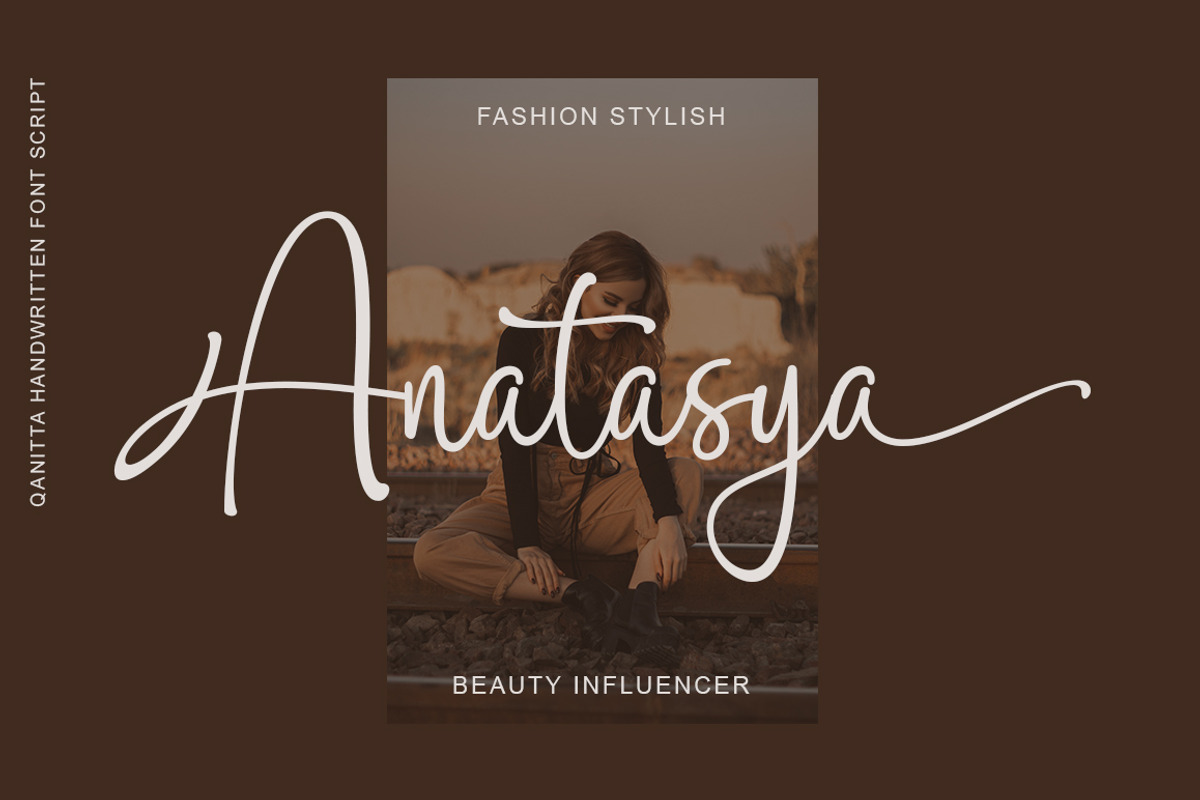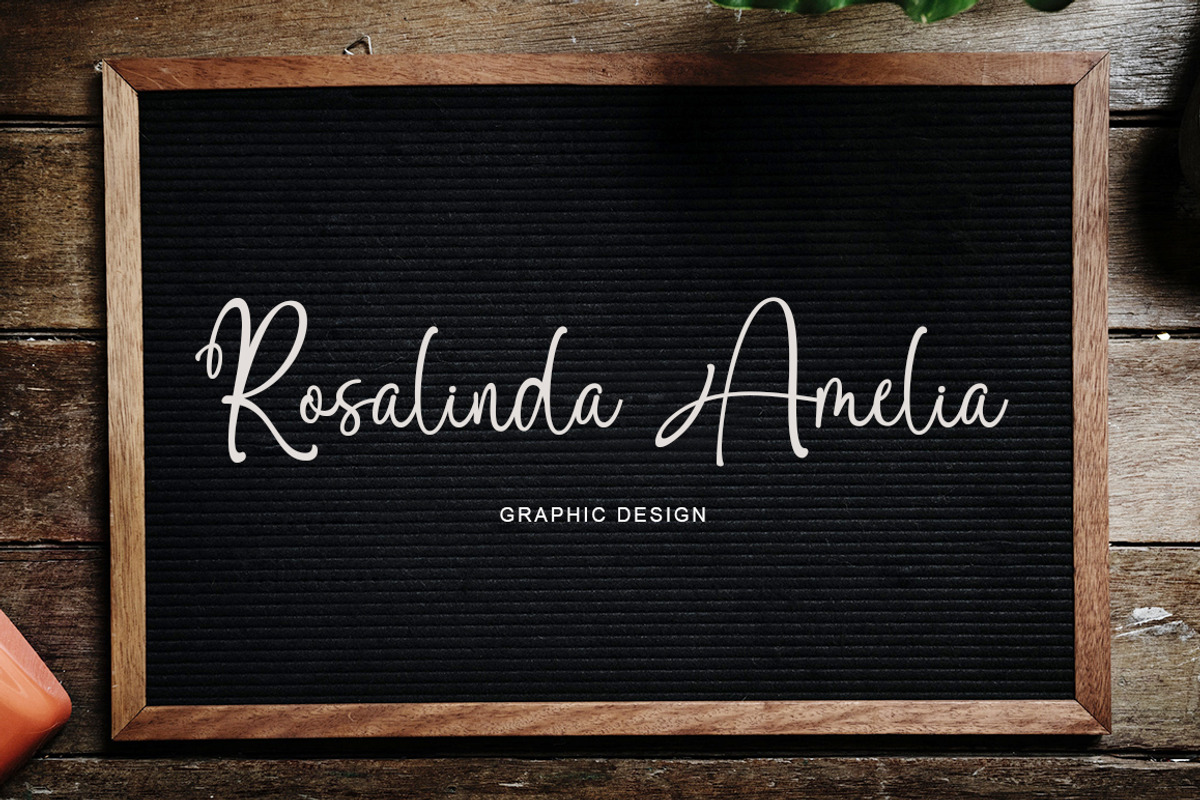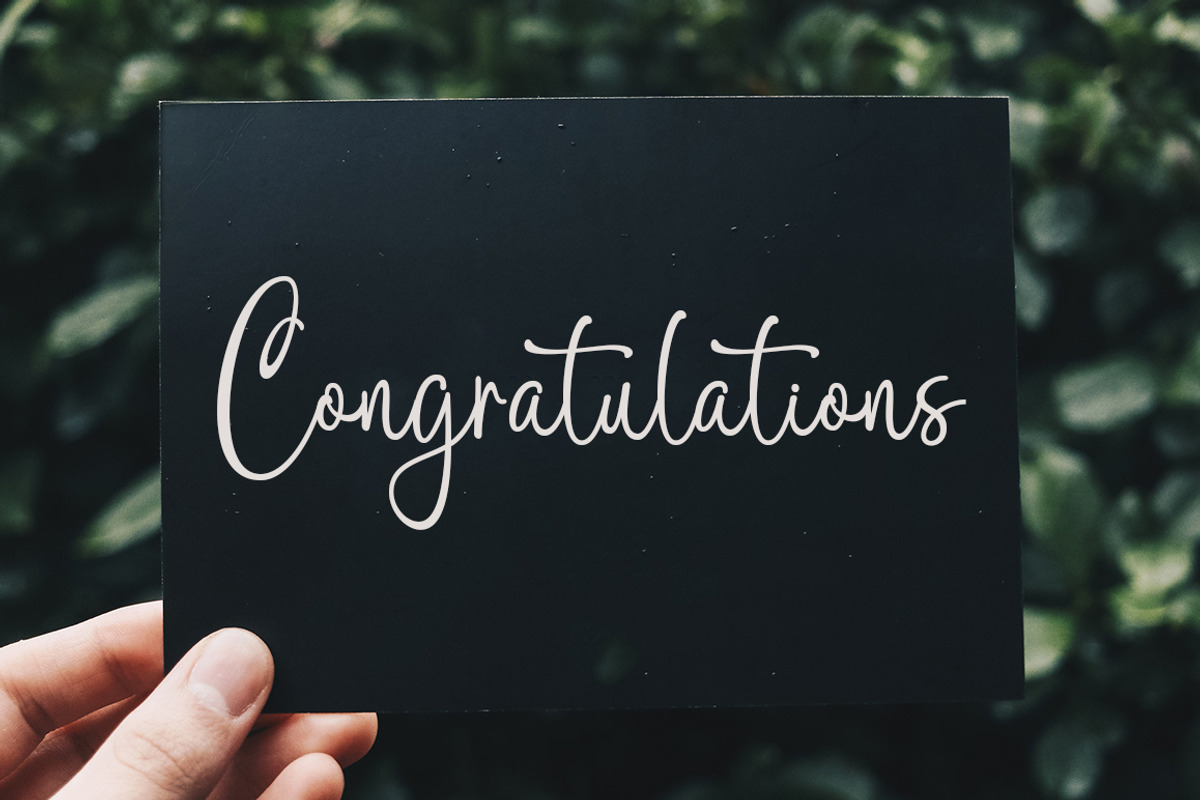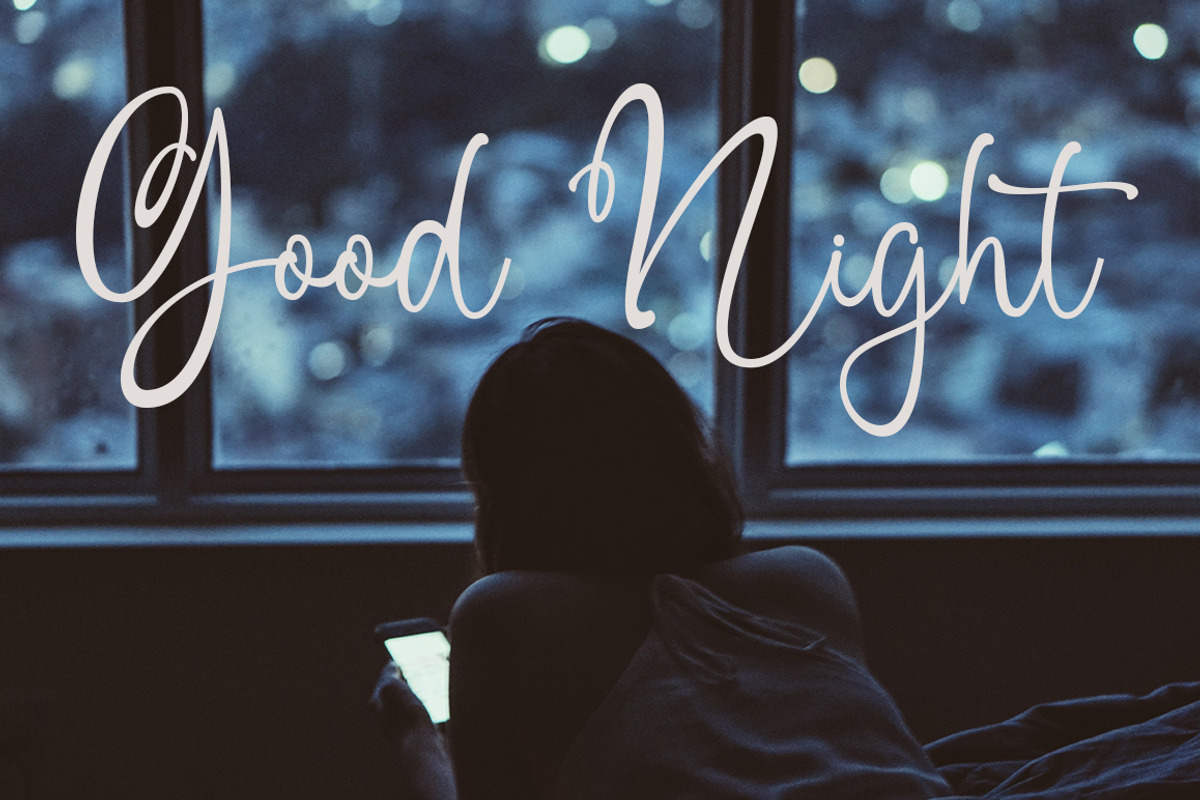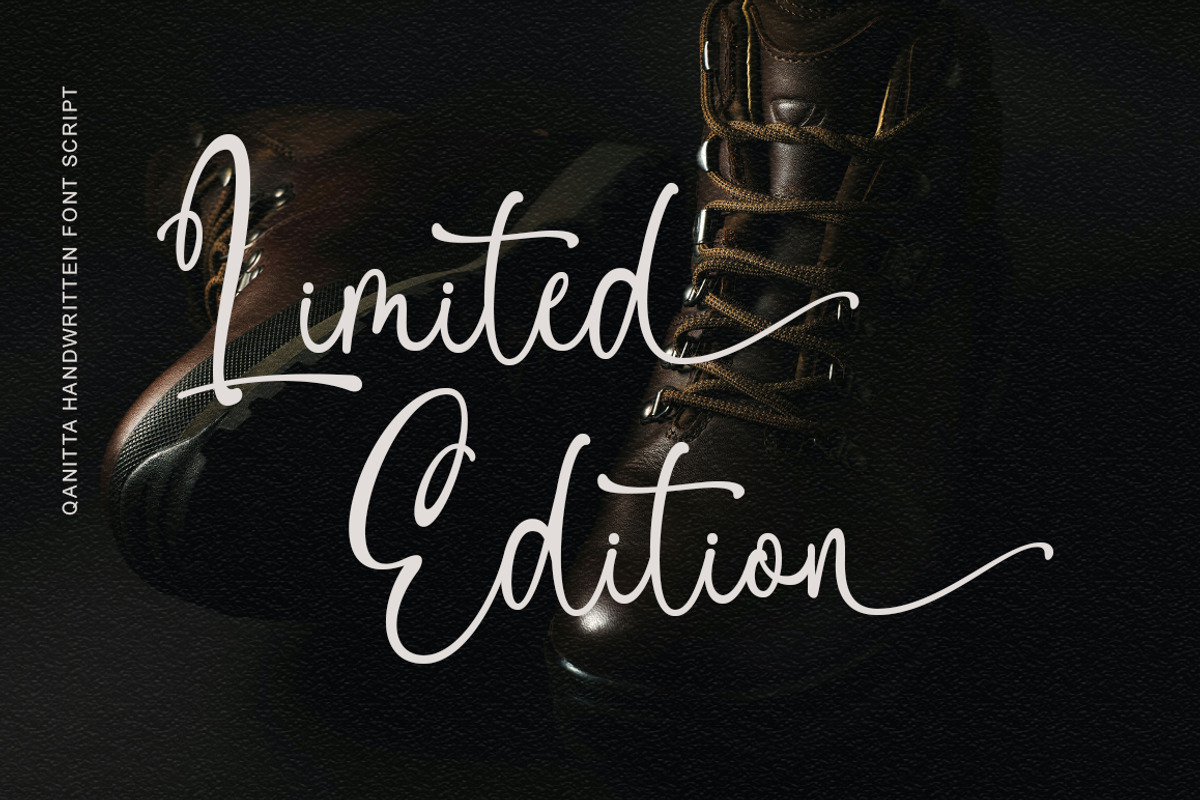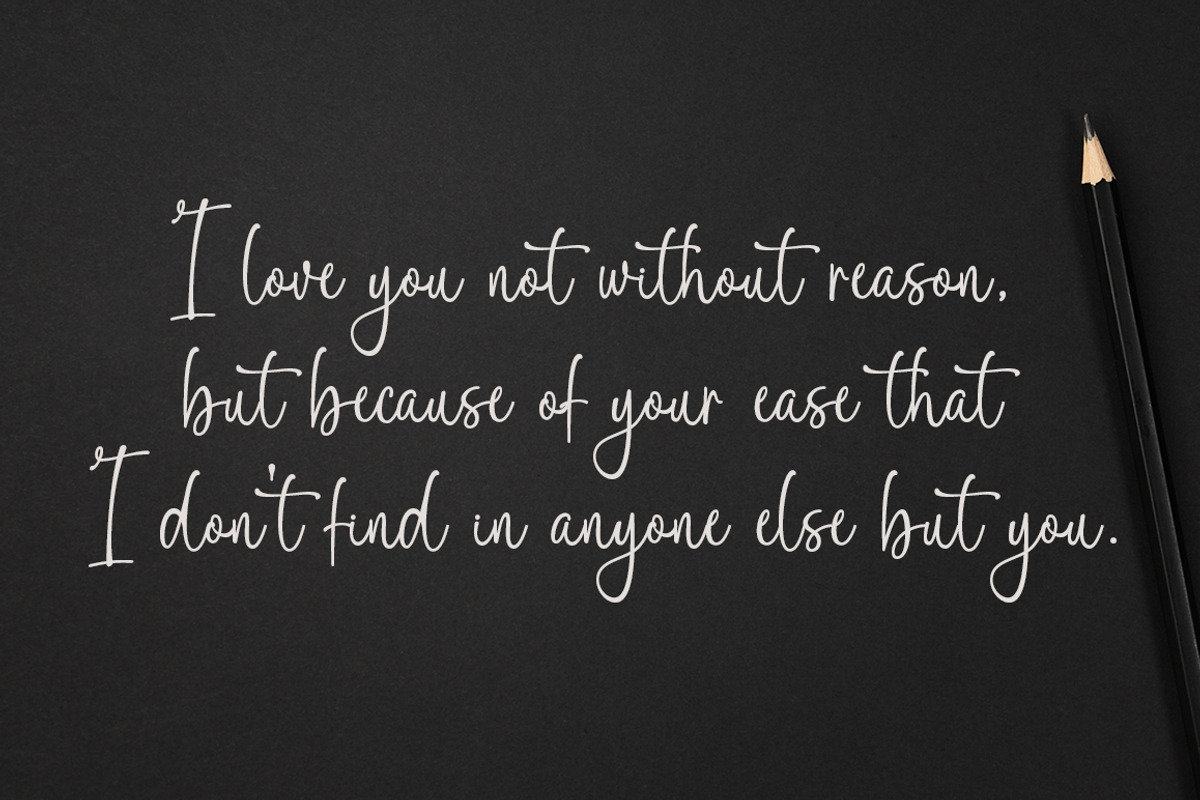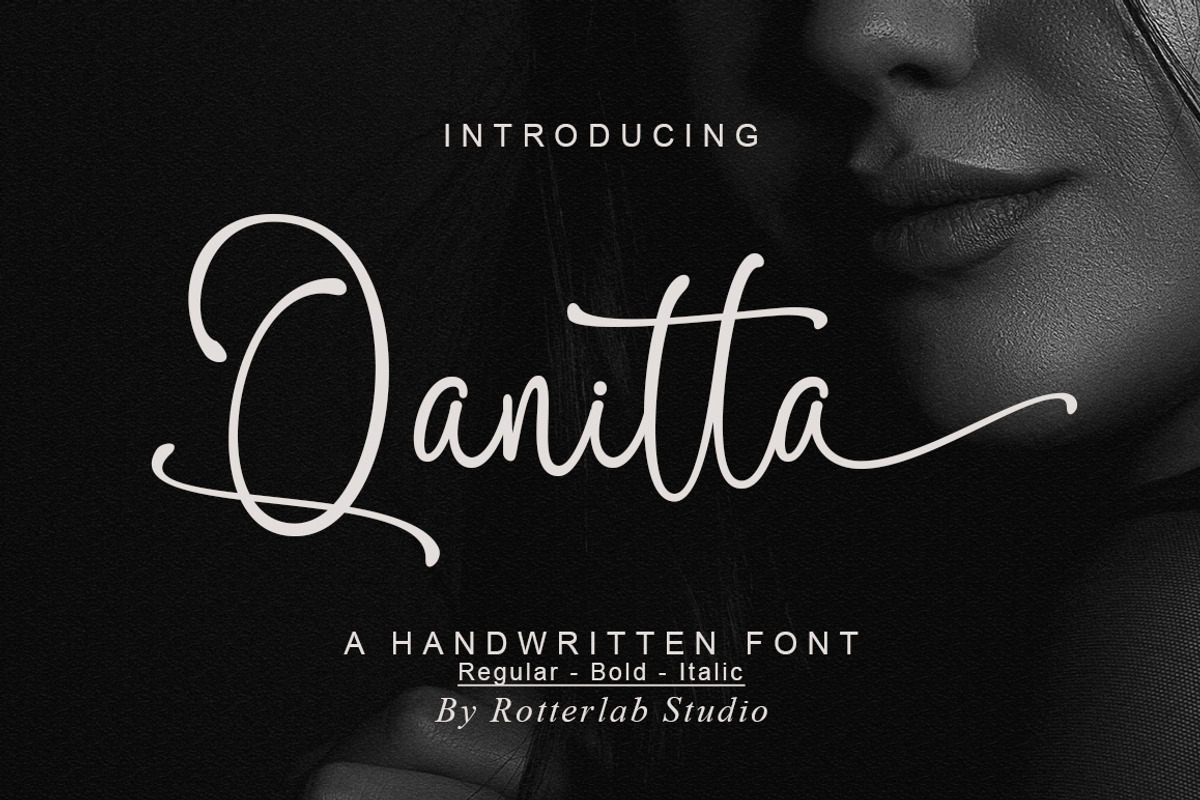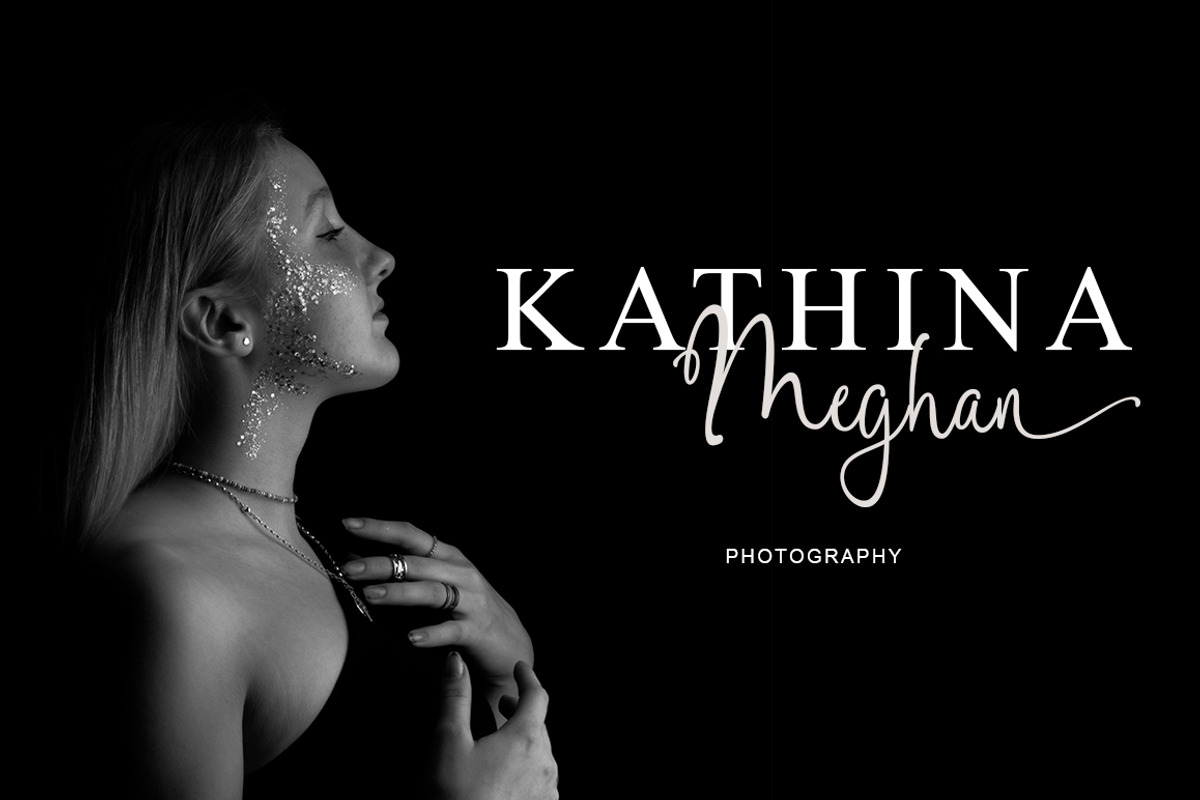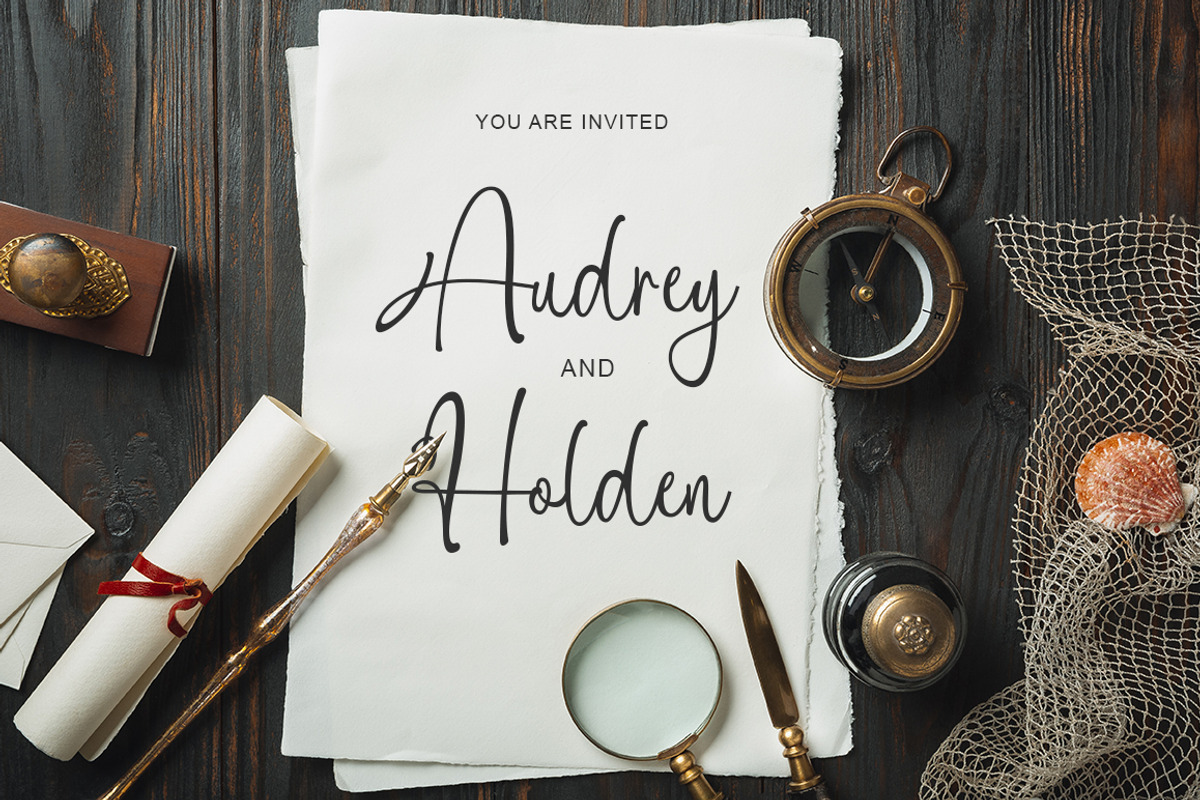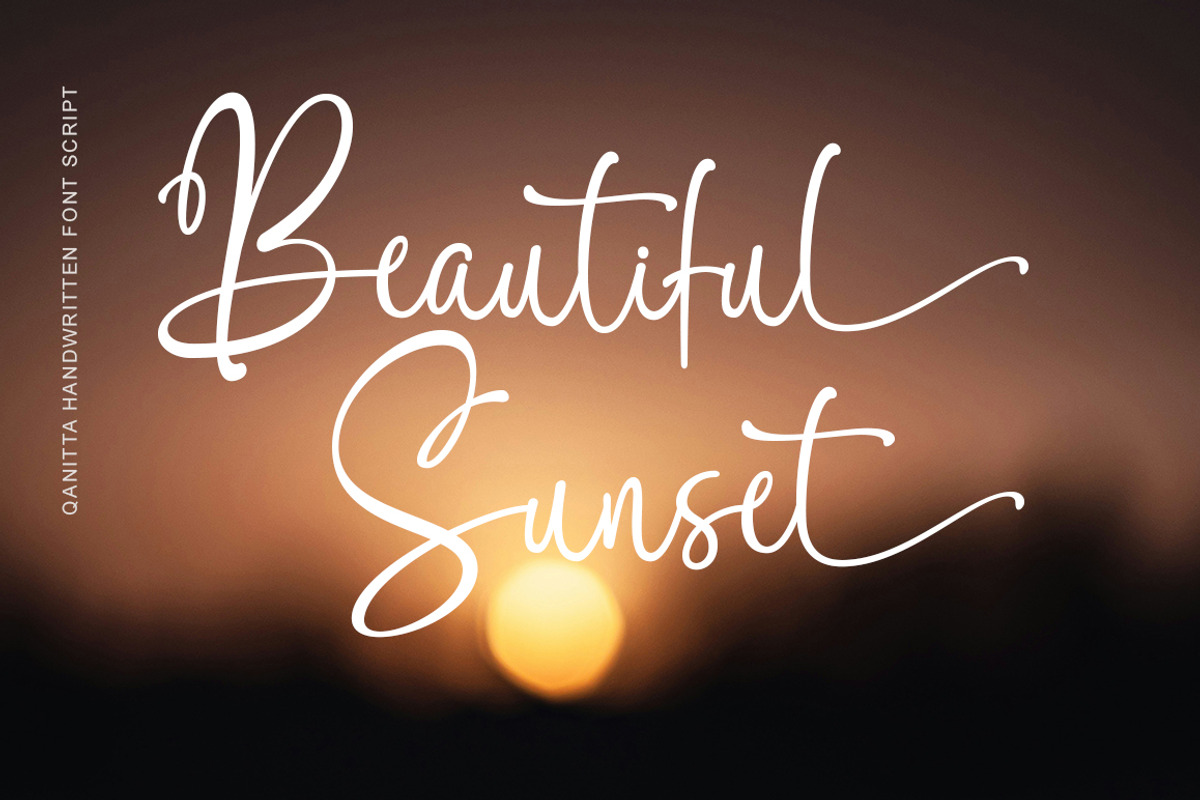
Qanitta
Qanitta is a casual handwritten font, this font perfect for logo, invitation, stationery, wedding designs, social media posts, advertisements, product packaging, product designs, label, photography, watermark, special events or anything.